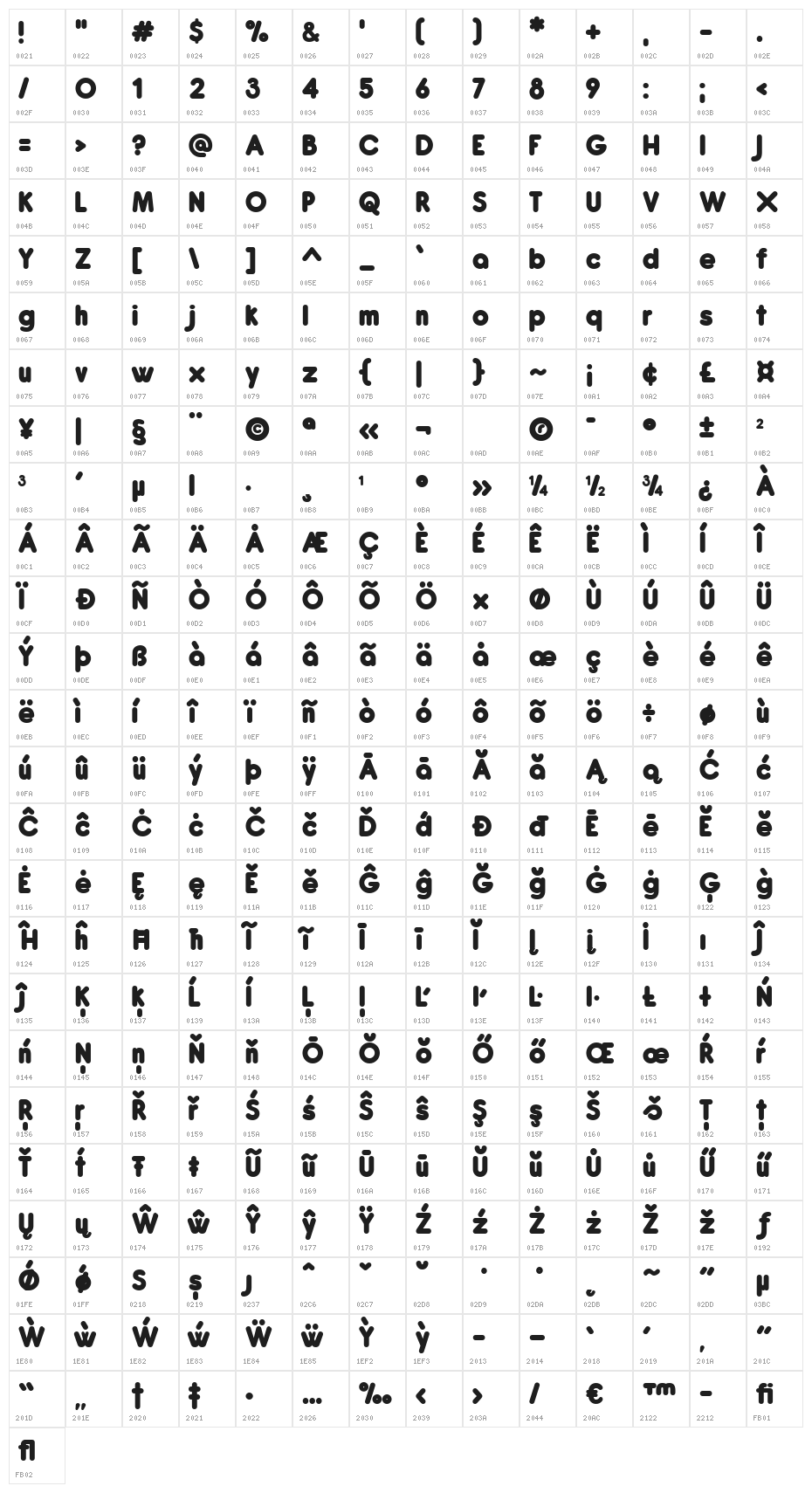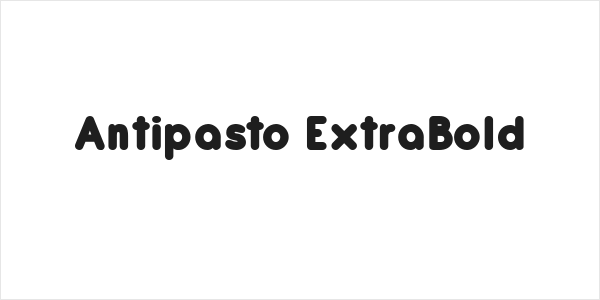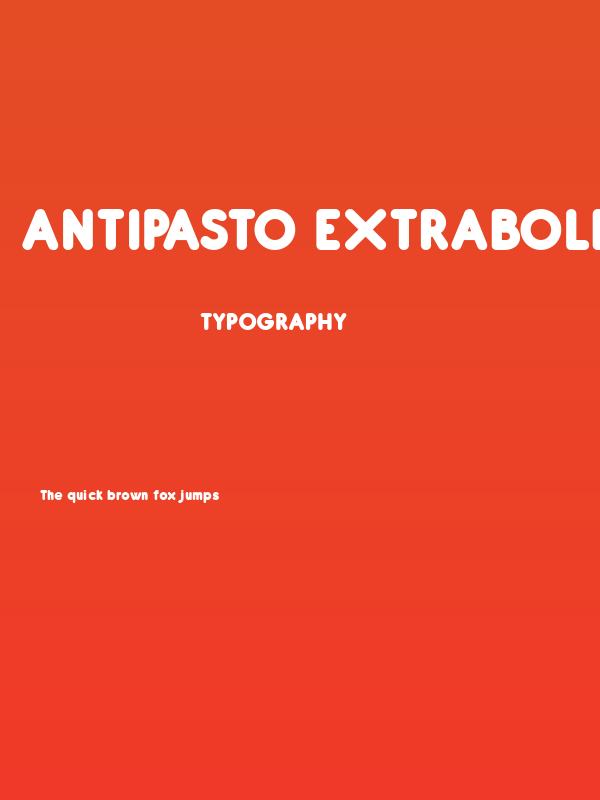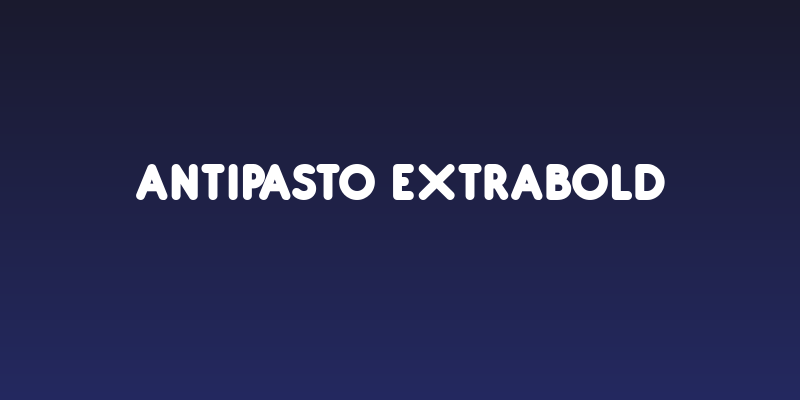
Antipasto ExtraBold Font
Antipasto ExtraBold Description
This font features a bold, rounded style with a playful and friendly appearance. The characters are thick and uniform, with smooth curves and a consistent weight throughout. The uppercase and lowercase letters maintain a cohesive look, while the numerals and special characters complement the overall design. Its extra-bold weight gives it a strong presence, making it ideal for attention-grabbing headlines and designs. The rounded edges soften the boldness, adding a touch of approachability and warmth.
| Proposed Projects | Ideal for branding, packaging, children's books, and playful advertising campaigns. |